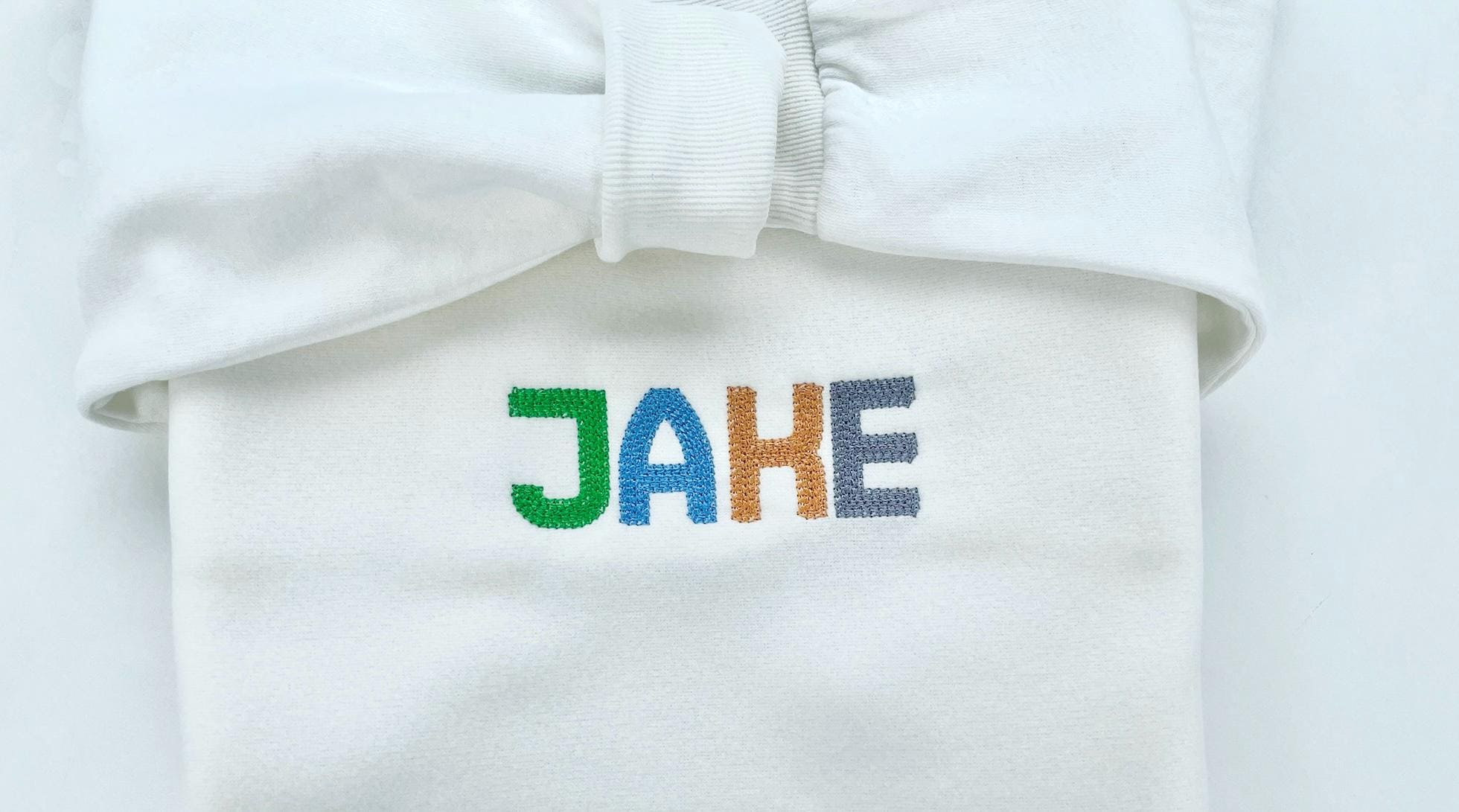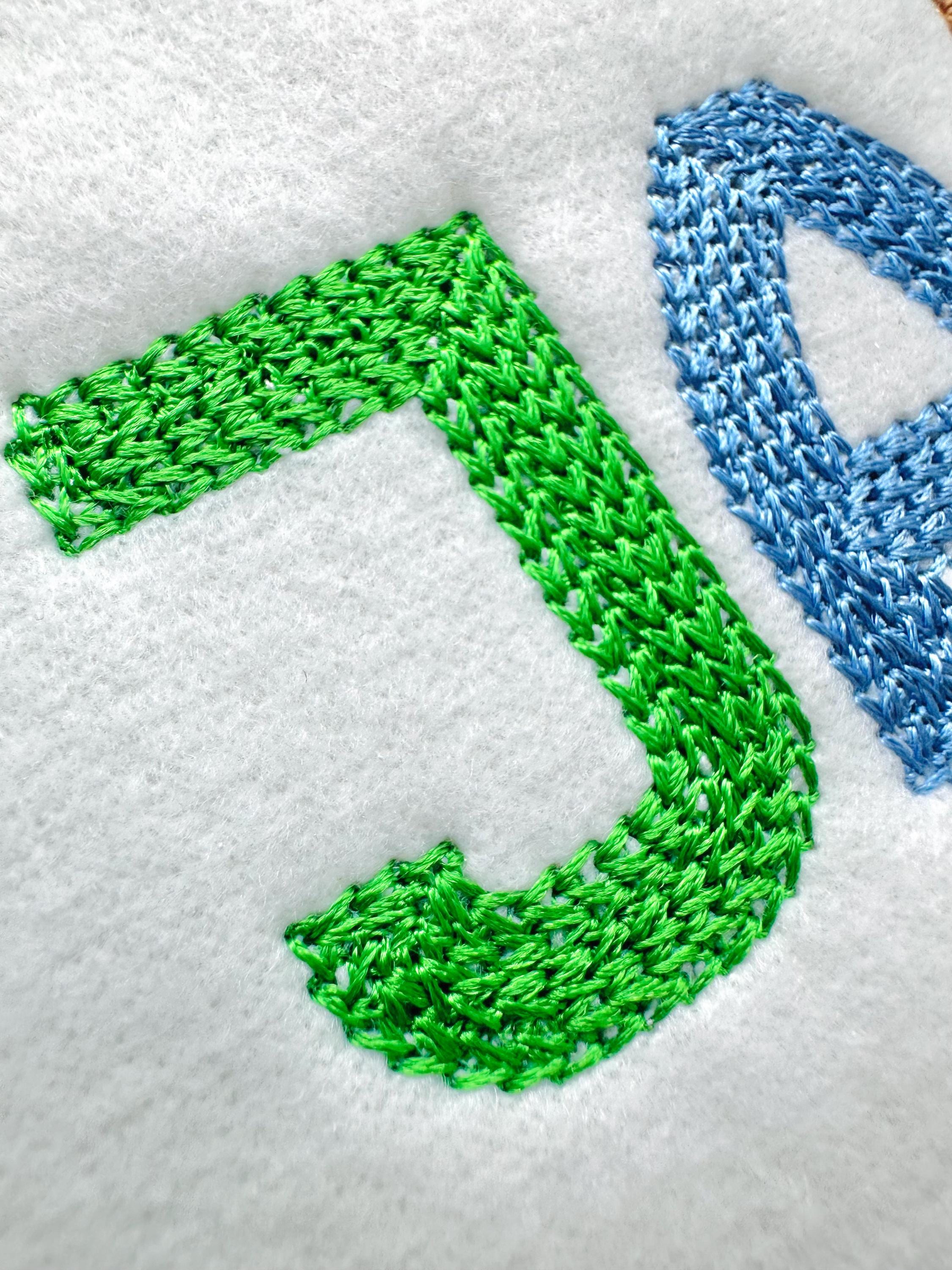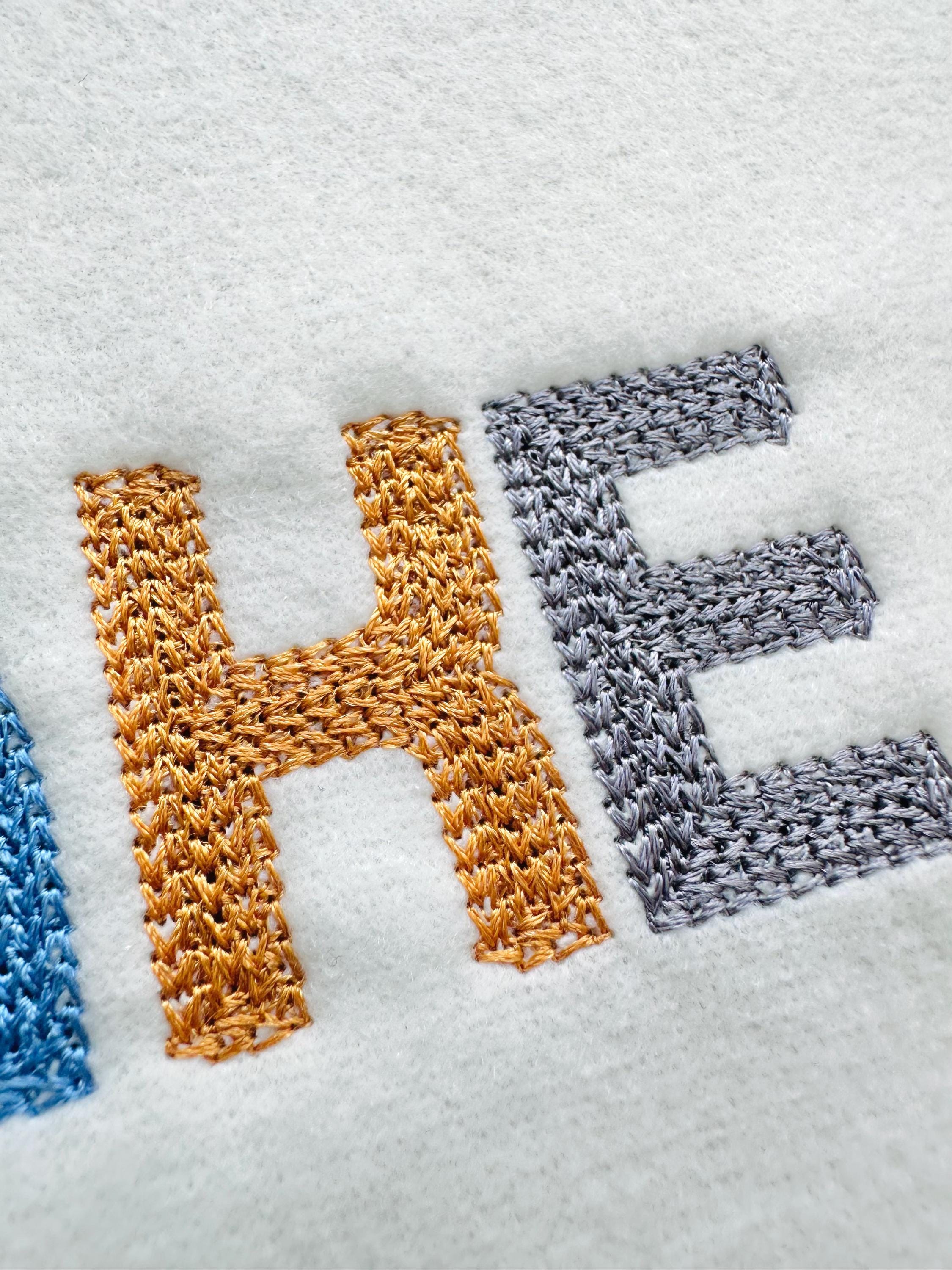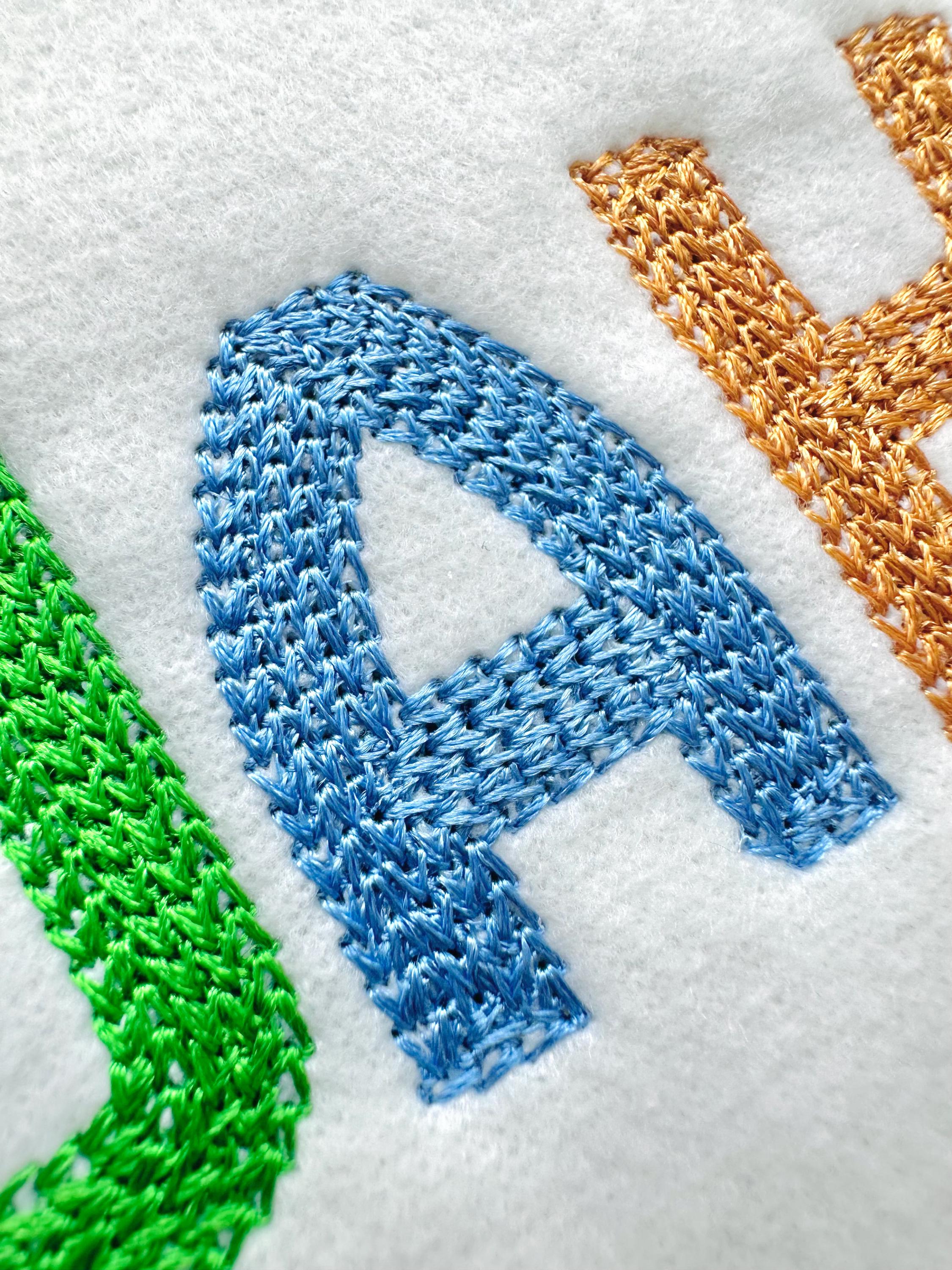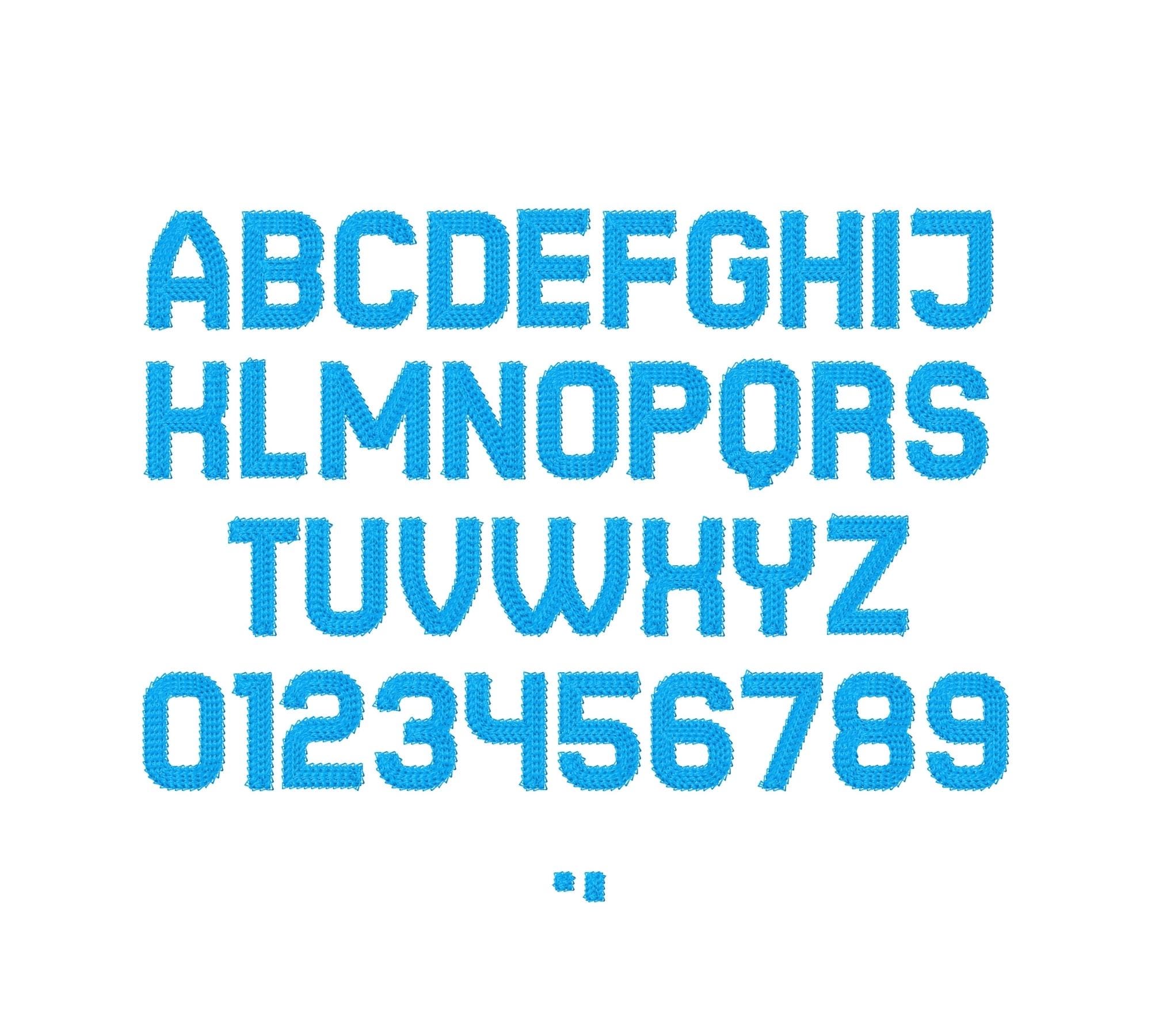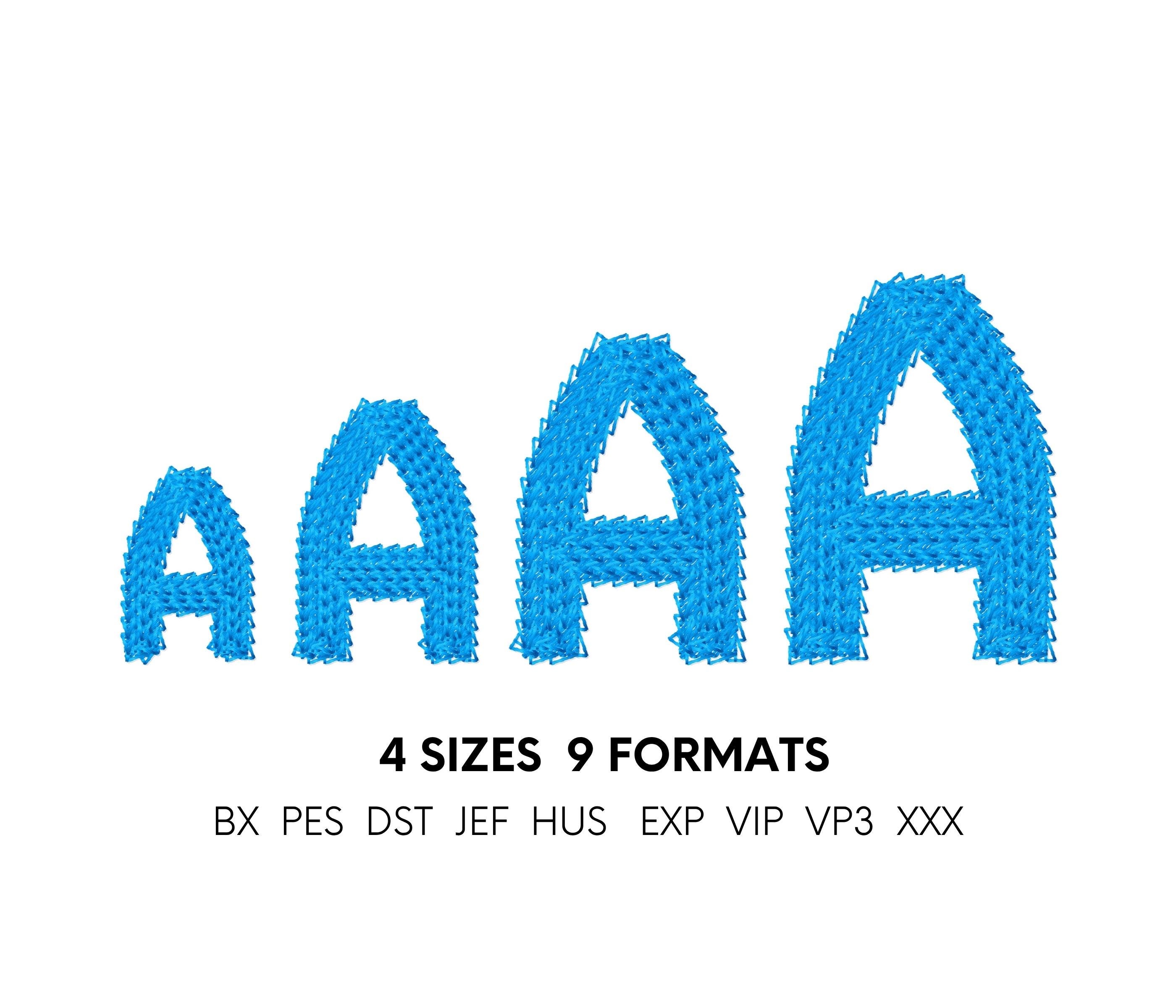
Chain Block Font hand stitch effect machine embroidery designs alphabet letters numbers monogram kids mini sizes 1.2 up to 2.3 inch, BX
The whole alphabet Aa-Zz uppercase and lowercase letters, numbers 0-9, and punctuation.